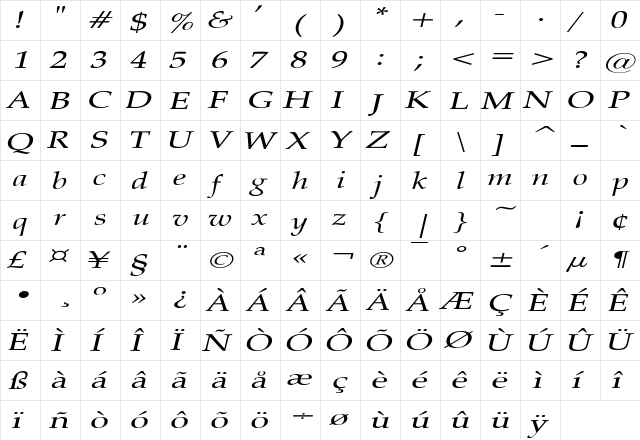
PaduaExtended Italic
Design Context for PaduaExtended Typeface
PaduaExtended is a composed and adaptable typeface that performs quietly and consistently across a wide range of design contexts. The dynamic lean of this cut emphasises speed and emphasis in any layout.
Pro Tip: Use PaduaExtended for emphasis, pull quotes, and subheadings where its slanted energy can add rhythm to the layout.